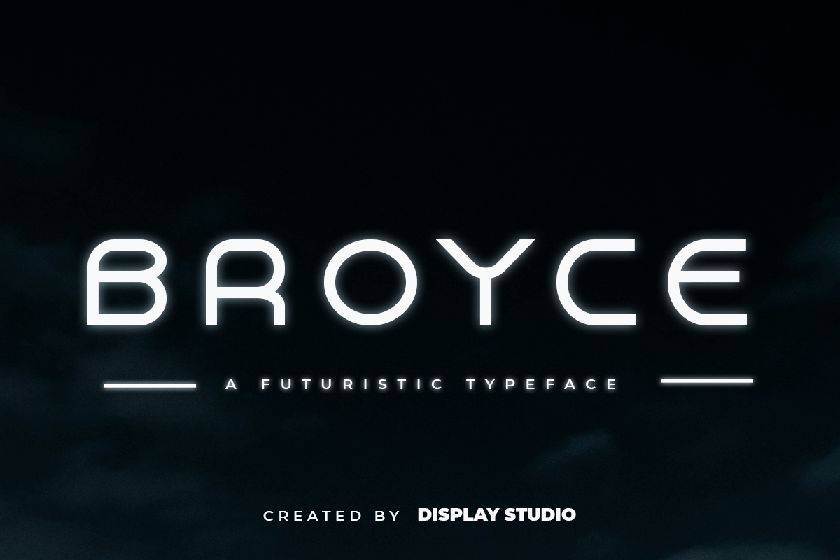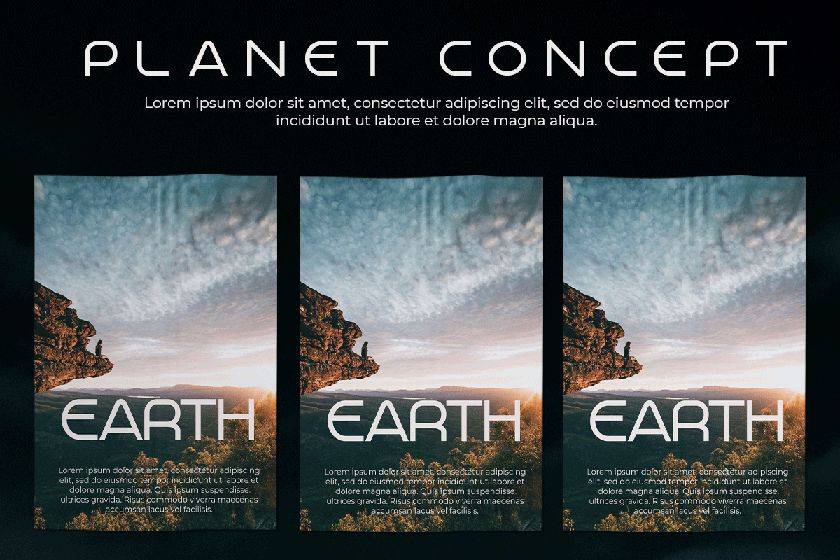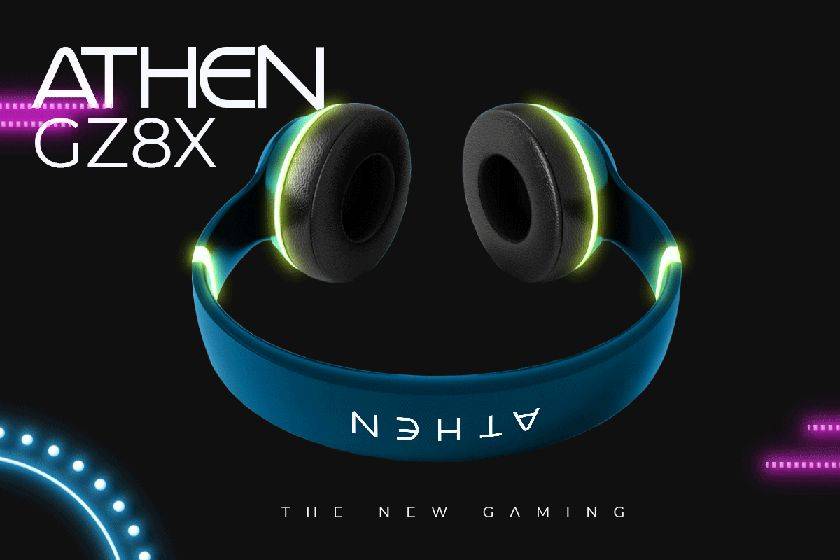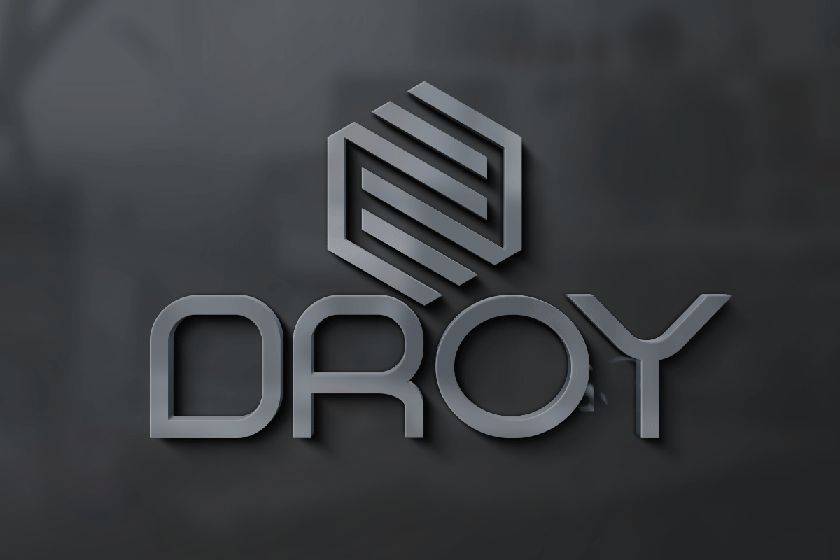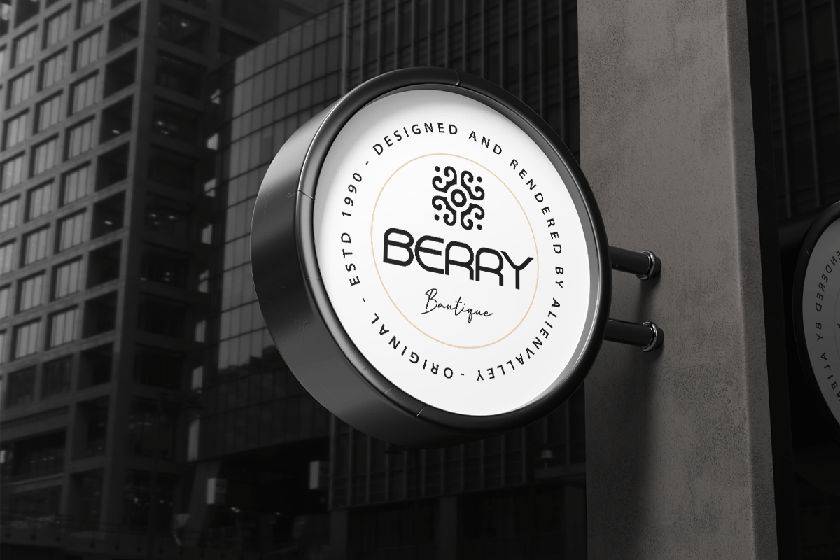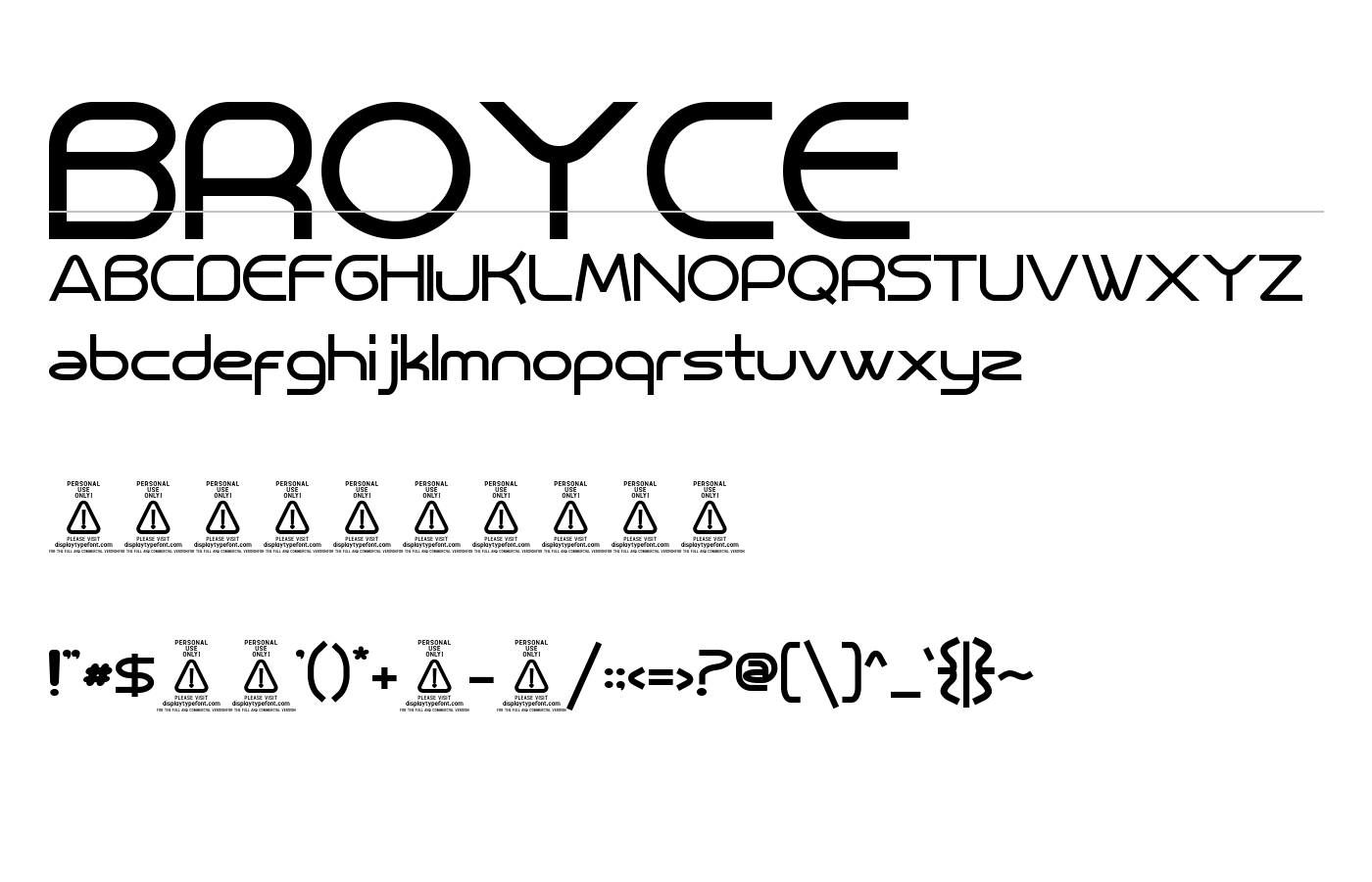
Broyce is a modern sans serif font with a sleek, futuristic feel characterized by its geometric shapes and clean, rounded edges. It features a medium weight and tall x-height, with unique letterforms such as the curved Q tail and angular details in R and K, making it stand out with a stylish and technical vibe. This font works well for contemporary branding, technology-related projects, headlines, and digital interfaces where a modern, innovative look is desired.
Broyce Font
About Broyce Font